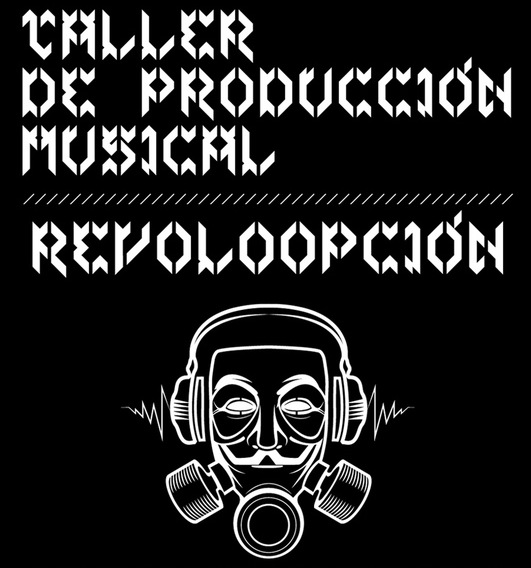
Ernesto Salones
Mexican creator of the condensed angular typeface Prototype (2011), the custom ultra-fat display typeface Enco (2012), the custom typeface Insurreccion (2012, a goth stencil), the octagonal typeface Autoctono (2012), and the modular typeface SEYB (2012). |